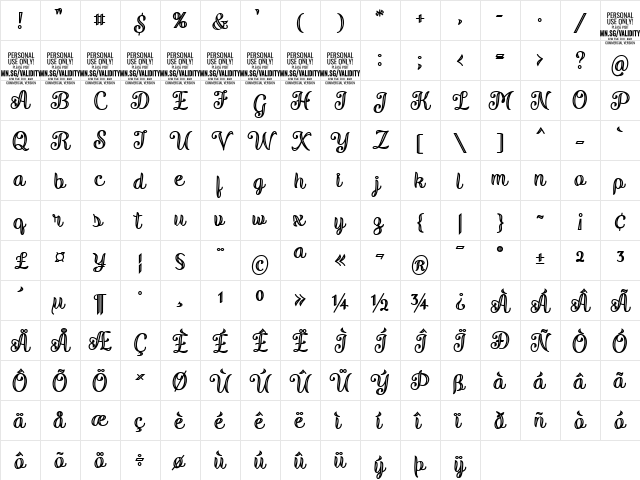
Validity Script Bold PERSONAL U flows with the natural rhythm of handwritten lettering, making it ideal for designs that call for warmth and personal expression. Its bold stroke weight gives it real presence on the page.
Font Pairing: Combine Validity Script Bold PERSONAL U with a simple geometric sans for maximum contrast - the tension between flowing curves and clean structure is a classic typographic pairing.
Pro Tip: Use Validity Script Bold PERSONAL U for short runs of text - names, titles, or taglines. Extended body copy in script faces tires the eye quickly.